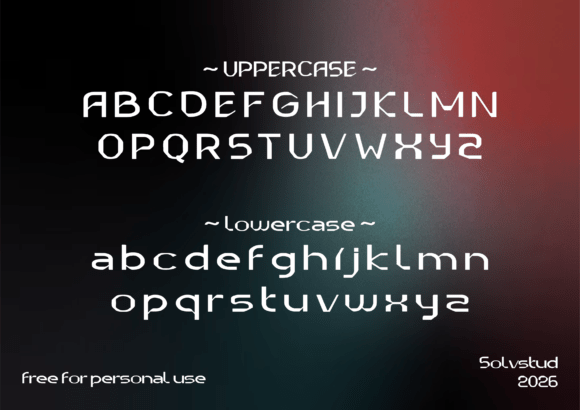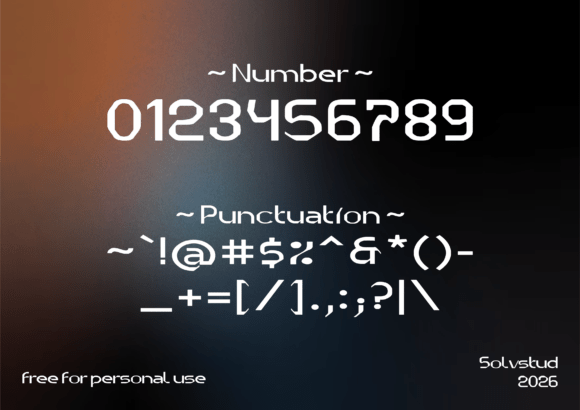
Blast Off into the Future with Braven Font
Have you ever been in the midst of a design project, and suddenly, you’re stuck on finding the perfect font? I recall a recent experience where a client requested a futuristic and high-tech look for their aerospace branding. After scouring through numerous fonts, I stumbled upon Braven – a modern, futuristic font that catapulted my design into the next frontier.
The Braven Advantage
Braven boasts wide, expansive letterforms with clean geometric lines and distinctive, precision-cut apertures that exude high-tech sophistication. Its unique character is defined by a balanced contrast between sharp architectural corners and smooth, aerodynamic curves. This makes it an extraordinary choice for:
- Aerospace branding 🚀
- Futuristic gaming interfaces 🎮
- Sci-fi cinematic titles 🍿
- Cutting-edge tech logos 💻
- ✨ Unique and futuristic design
- ✅ Clean geometric lines and precision-cut apertures
- 💡 Supports OpenType features, glyphs, and stylistic alternates
- 🎯 Highly legible, even at small sizes
While Braven is an exceptional font, there are a few minor considerations:
- 🤔 Limited availability of certain language scripts
If you’re looking for similar fonts or alternatives to Braven, consider:
- Montserrat: A sleek and modern sans-serif font with a geometric feel, ideal for urban and tech branding
- Space Mono: A monospaced font with a futuristic and technological vibe, perfect for coding and digital interfaces
- Avenir: A clean and geometric sans-serif font with a futuristic feel, suitable for luxury and tech branding
- Neon: A bold and futuristic font with a neon-like aesthetic, great for attention-grabbing headlines and titles
The Designer Inspiration Behind Braven
The story behind Braven’s creation is one of innovation and forward thinking. Imagine a designer who, fascinated by space exploration and futuristic technologies, set out to craft a font that embodies the spirit of the future. Through meticulous attention to detail and a passion for typography, Braven was born – a font that not only looks to the future but also inspires it.
Q: What makes Braven suitable for aerospace branding?
A: Braven’s futuristic design, clean lines, and precision-cut apertures evoke a sense of high-tech sophistication, making it an ideal choice for aerospace branding.
Q: Does Braven support OpenType features?
A: Yes, Braven supports OpenType features, including ligatures, stylistic alternates, and glyphs, allowing you to create complex and visually appealing text arrangements.
Q: Is Braven highly legible?
A: Yes, Braven is designed to be highly legible, even at small sizes, making it suitable for a wide range of applications, from digital interfaces to print materials.